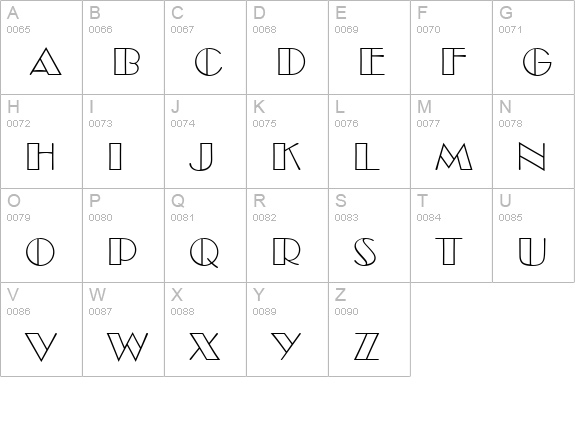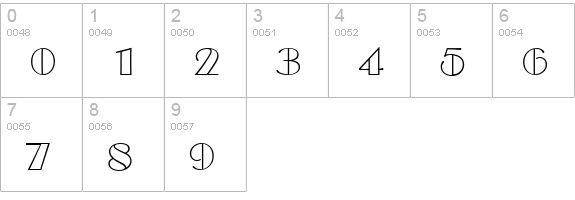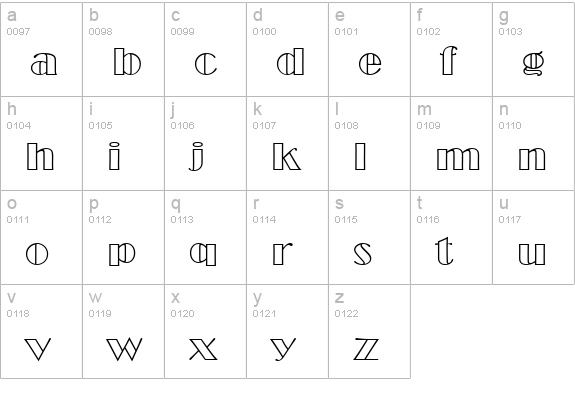
BroadwayOutD Font Details
Introducing BroadwayOutD font, a bold and dynamic typeface that exudes a sense of theatrical flair and sophistication. With its eye-catching design and striking capitals, this font is perfect for making a statement in your projects. BroadwayOutD font is a versatile choice for a variety of creative endeavors, from posters and advertisements to branding and packaging. Its unique style adds a touch of drama and elegance to any design, making it stand out from the crowd. Best of all, BroadwayOutD font is available for free download at FontsMarket.com. Whether you're a designer looking to add a touch of Broadway magic to your work or just someone who appreciates high-quality fonts, this is a must-have addition to your collection. Experience the power and beauty of BroadwayOutD font today and elevate your designs to new heights.